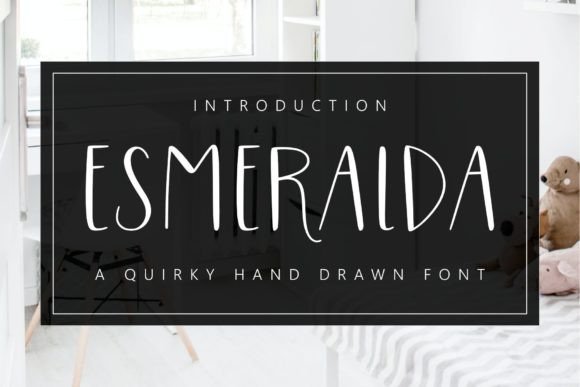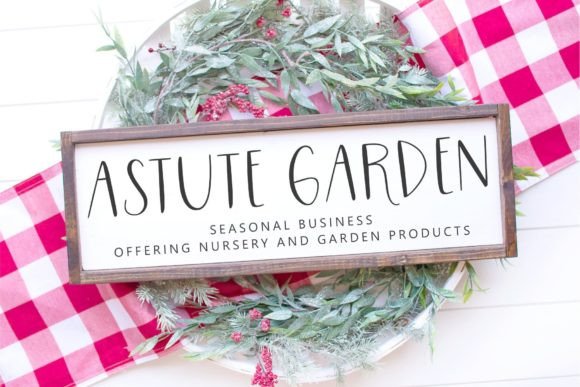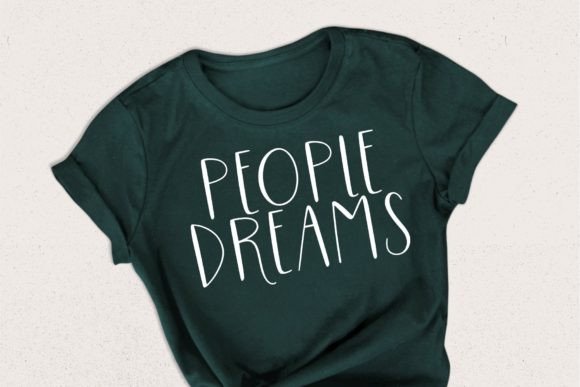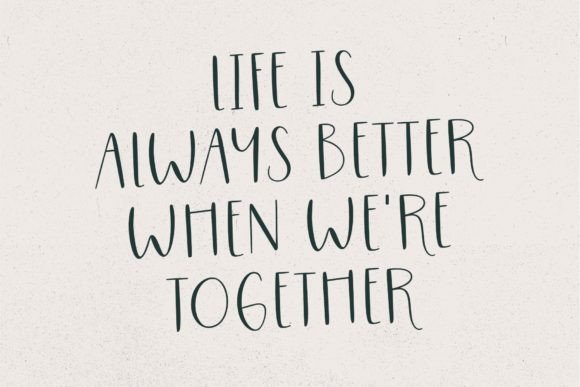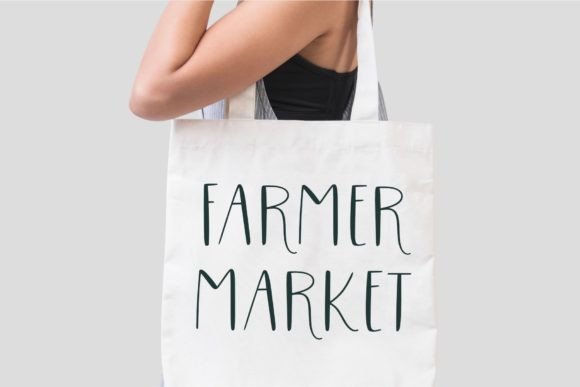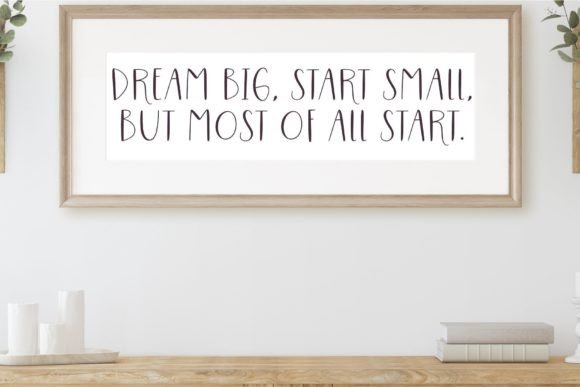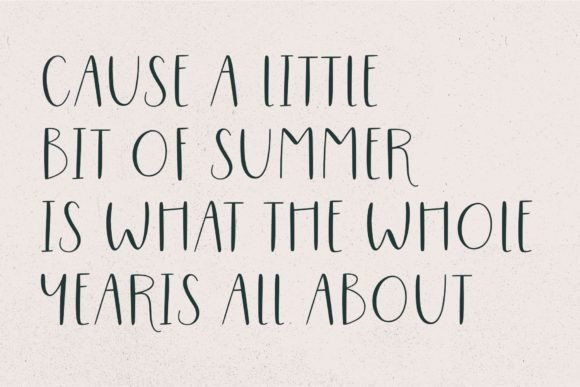
Esmeralda Font
About Esmeralda Font
**Esmeralda** is a font that embodies style, cuteness, and exquisite craftsmanship. Its stylish design, coupled with its adorable charm, makes it a standout choice for a wide range of creative projects. By incorporating Esmeralda into your designs, you have the opportunity to elevate your projects to new heights, capturing the attention of your audience and infusing them with a sense of charm and sophistication.
One of the defining characteristics of Esmeralda is its stylishness. The font’s well-crafted letterforms and modern aesthetics create a sleek and contemporary look. Its clean lines and elegant curves make it suitable for projects that demand a touch of sophistication, such as branding, logos, and high-end marketing materials. Esmeralda’s stylish appearance adds a professional and polished vibe to your designs, enhancing their visual appeal.
Esmeralda’s cuteness adds a playful and endearing element to your projects. Its charming and adorable nature makes it perfect for projects aimed at children, families, or anyone seeking a lighthearted and friendly atmosphere. Whether used in children’s books, product packaging, or social media graphics, Esmeralda infuses your designs with a delightful and inviting quality, making them more engaging and relatable.
The font’s handcrafted quality adds authenticity and uniqueness to your designs. Each character in Esmeralda is carefully crafted, giving your text a personalized and artisanal feel. Its beautifully handcrafted appearance makes it suitable for a variety of applications, such as invitations, greeting cards, posters, and more. Esmeralda’s handmade touch adds a sense of warmth and character, making your designs feel genuine and special.
In summary, Esmeralda is a stylish, cute, and beautifully handcrafted font that has the power to transform your projects. Its versatility allows it to adapt to various design contexts, from elegant and professional to playful and charming. By falling in love with Esmeralda, you can bring a unique and captivating element to your creative endeavors, taking your projects to the highest levels of visual excellence.